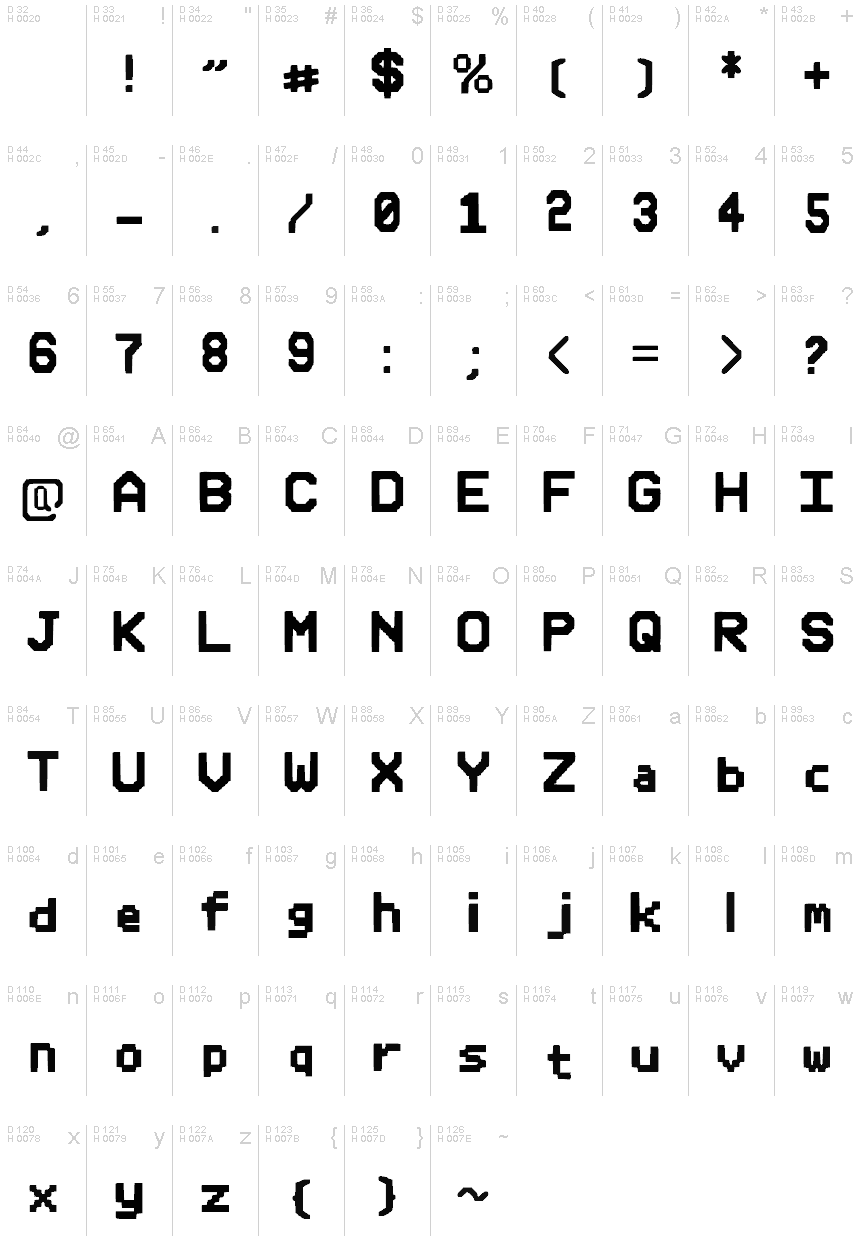
Pixle_Font
Pixle Font is a striking display typeface designed by Carlos Flores. Its bold, expanded silhouette and sleek, pixelated aesthetic evoke a distinct techno-inspired style.
The geometric letterforms and sharp edges convey a sense of modernity and digital sophistication, making this font well-suited for a range of contemporary design applications.
From eye-catching headlines and logos to dynamic user interfaces and digital art, Pixle Font's unique visual character has the power to command attention and elevate the visual impact of any project.